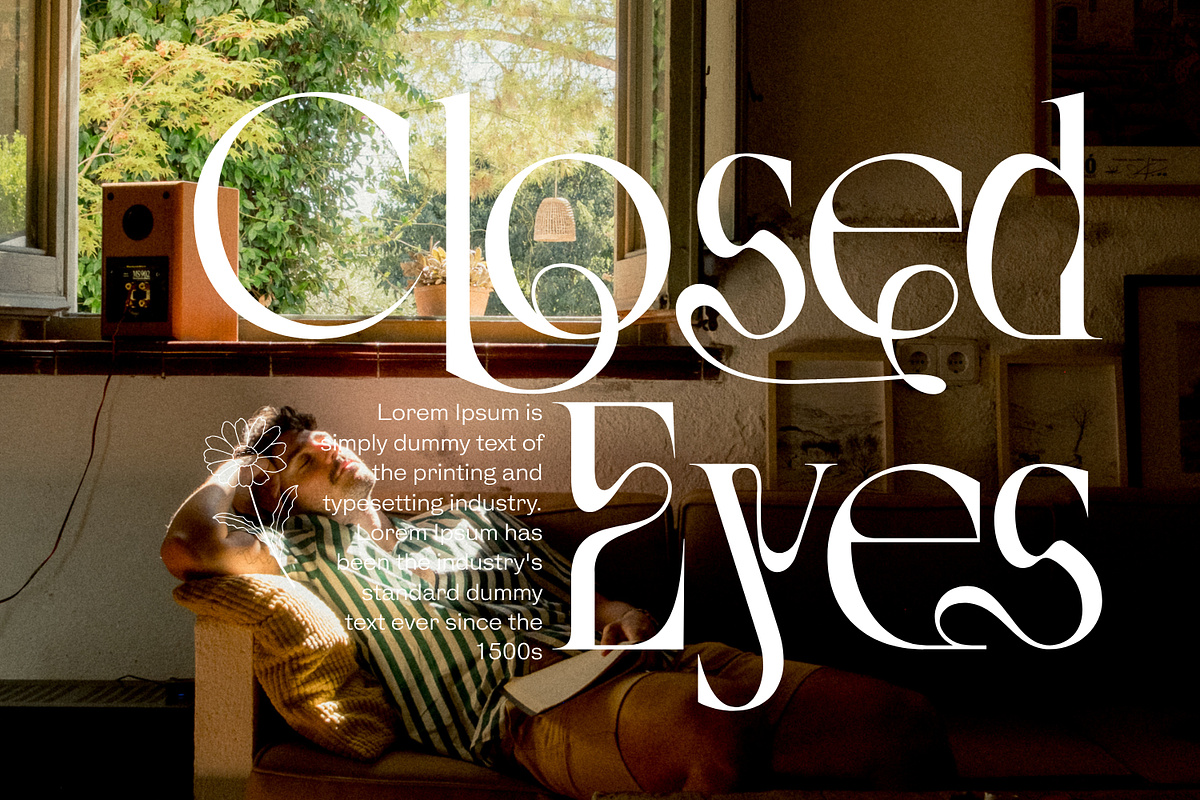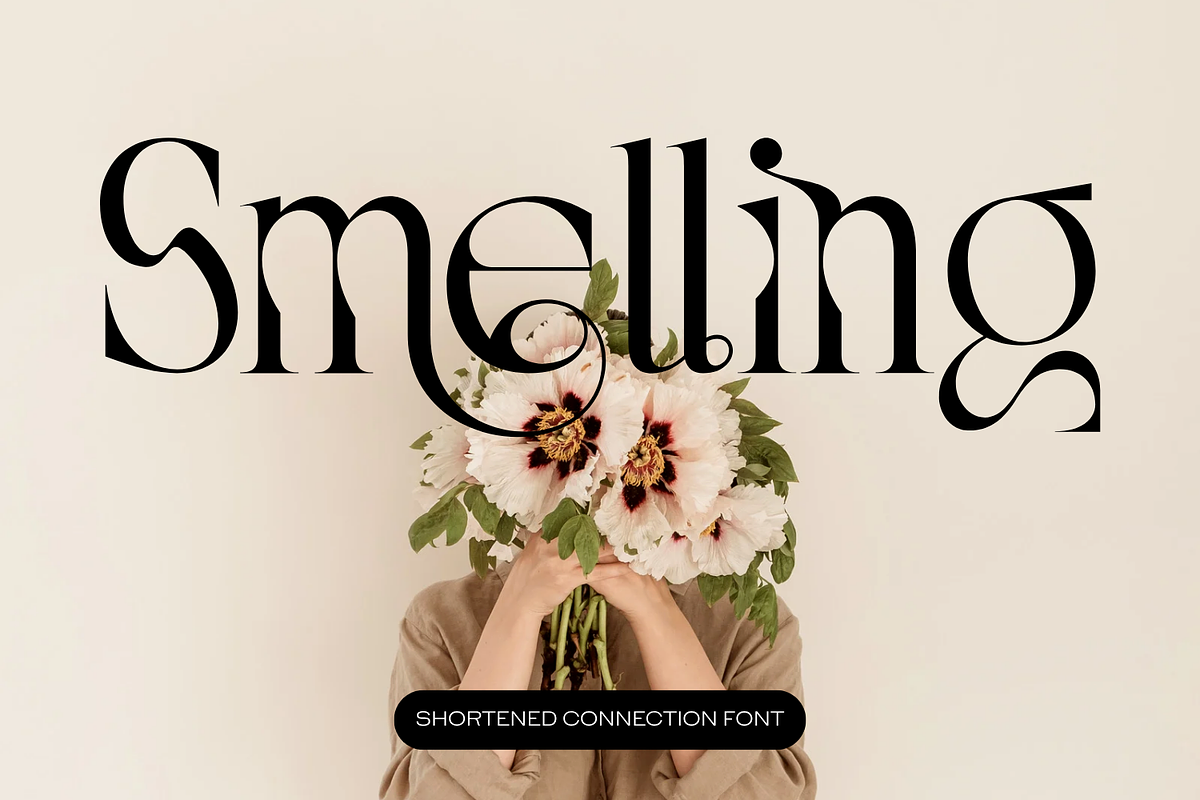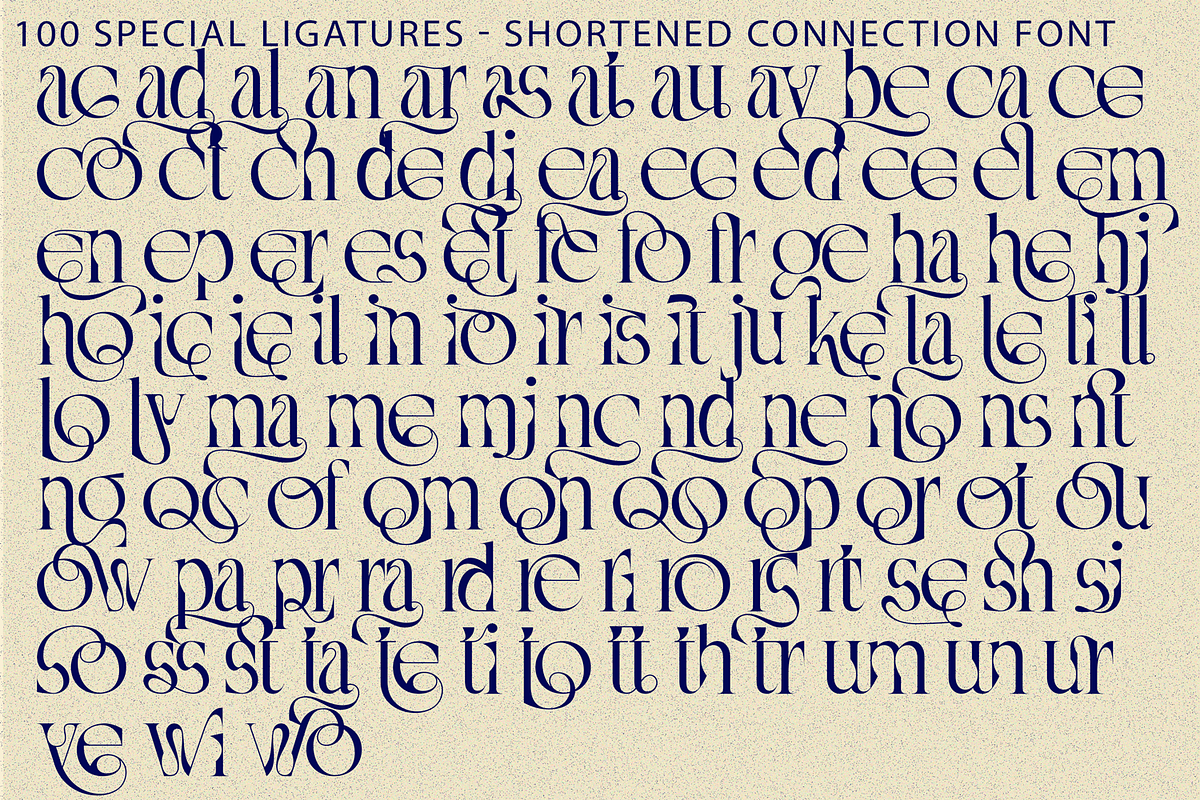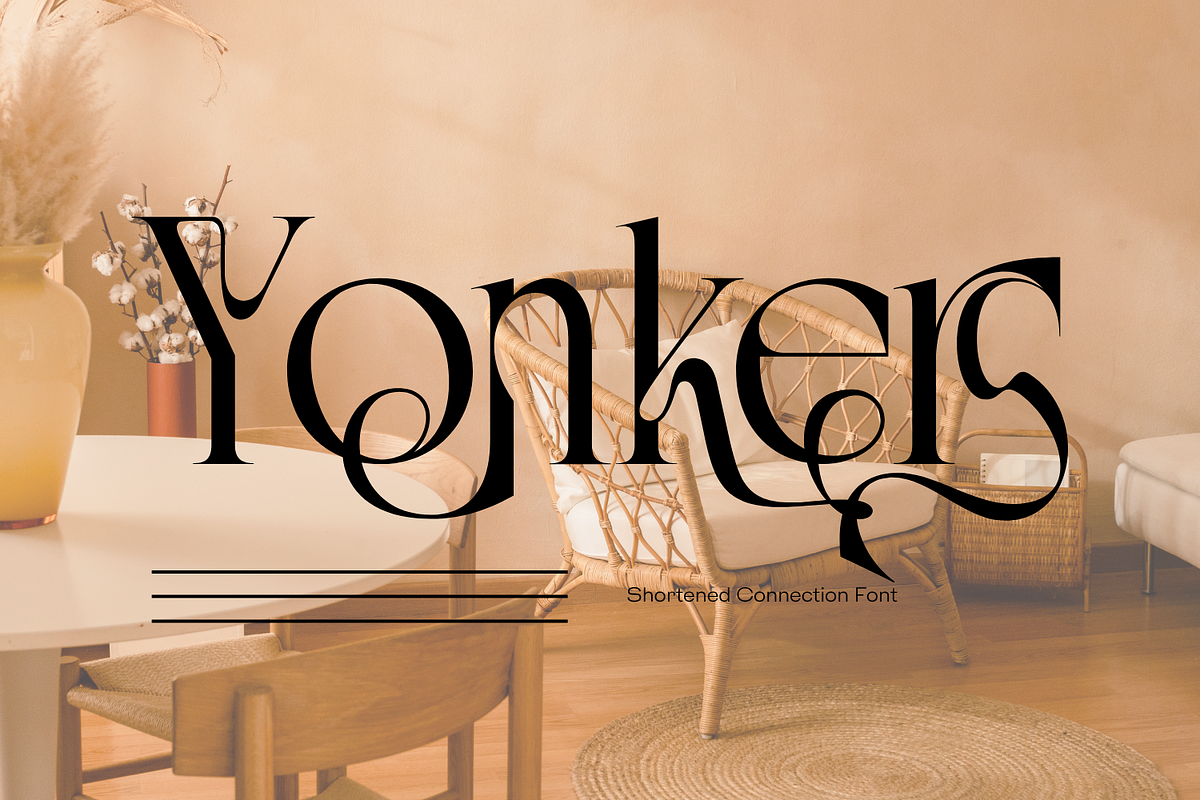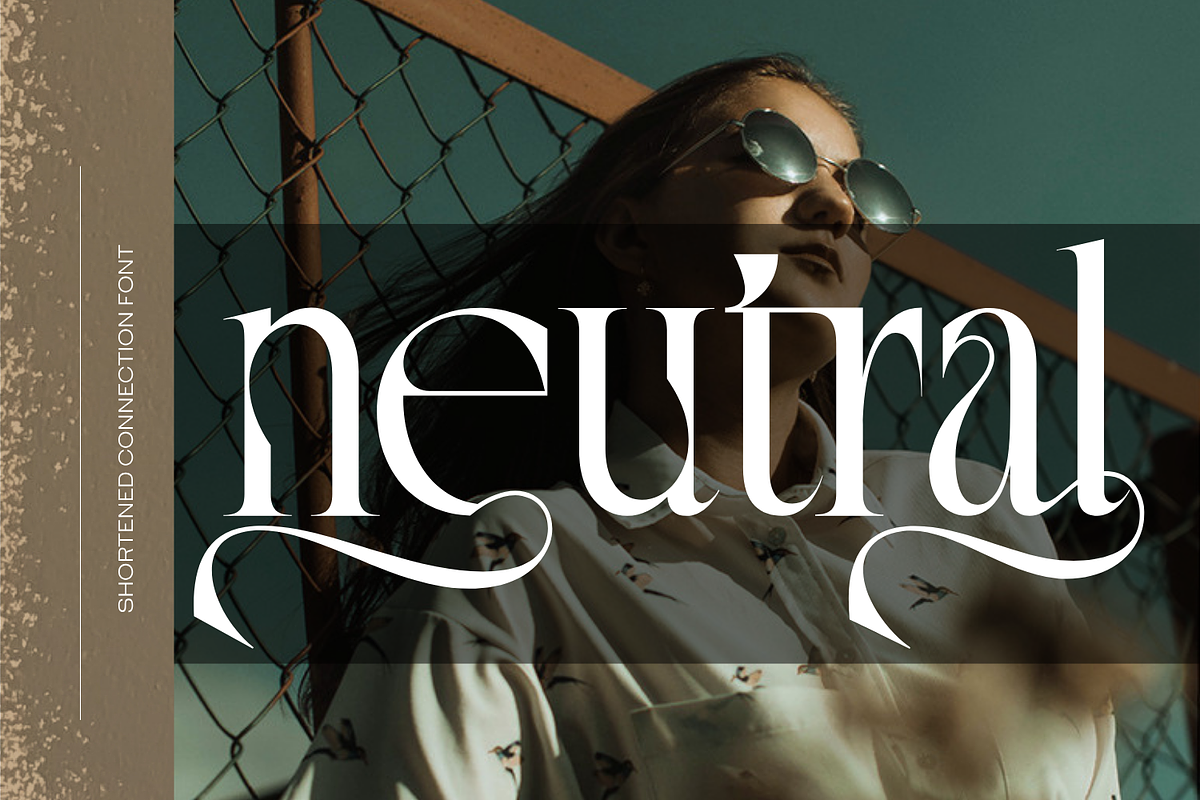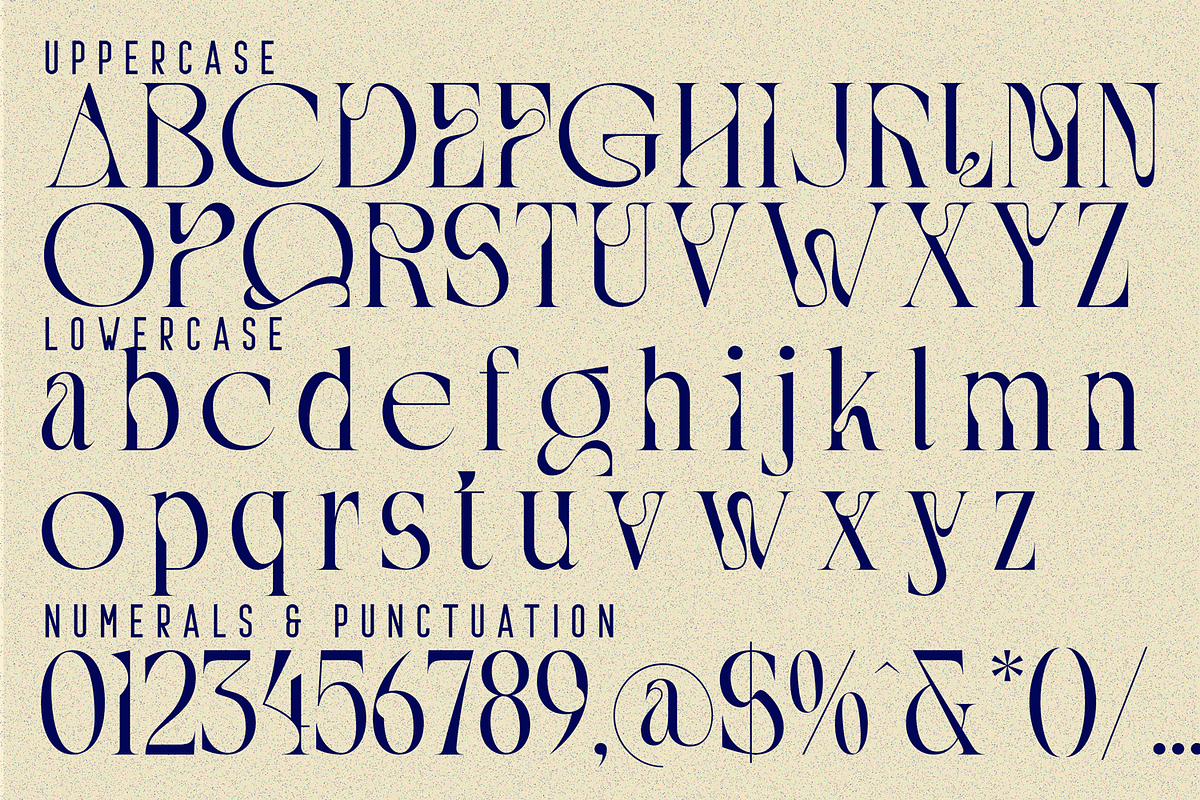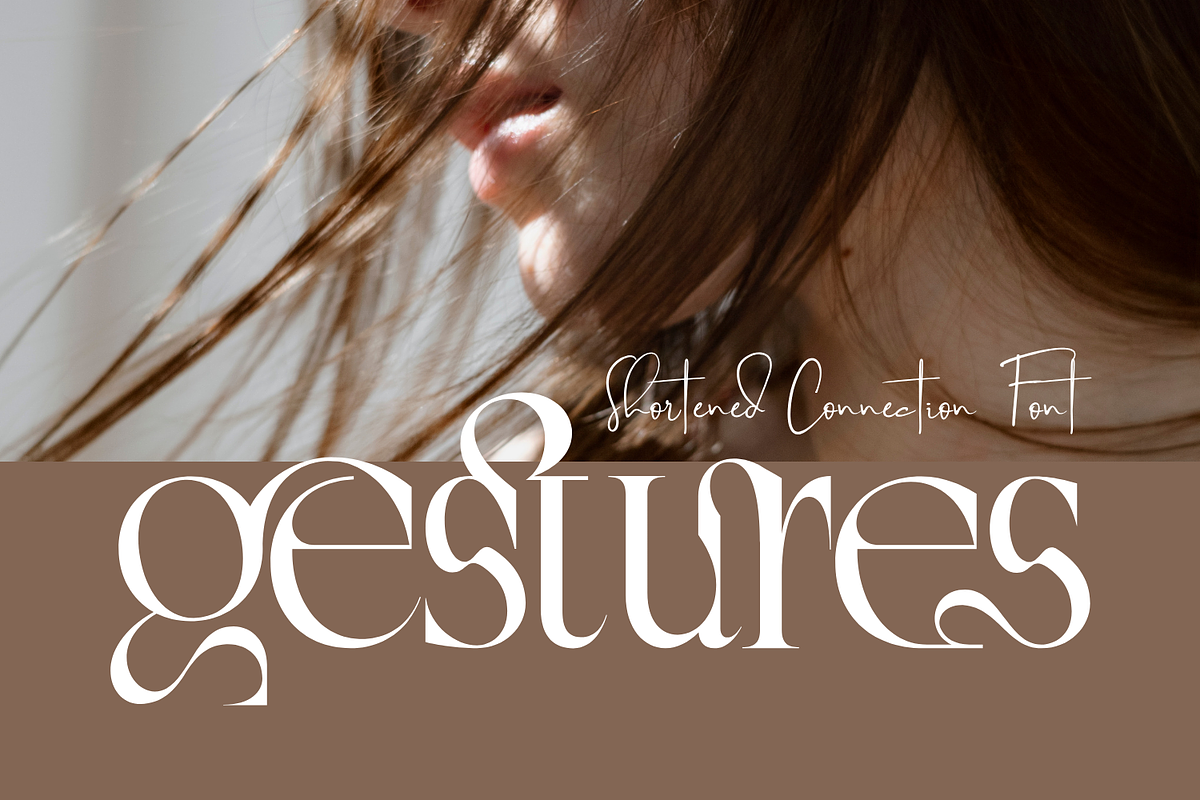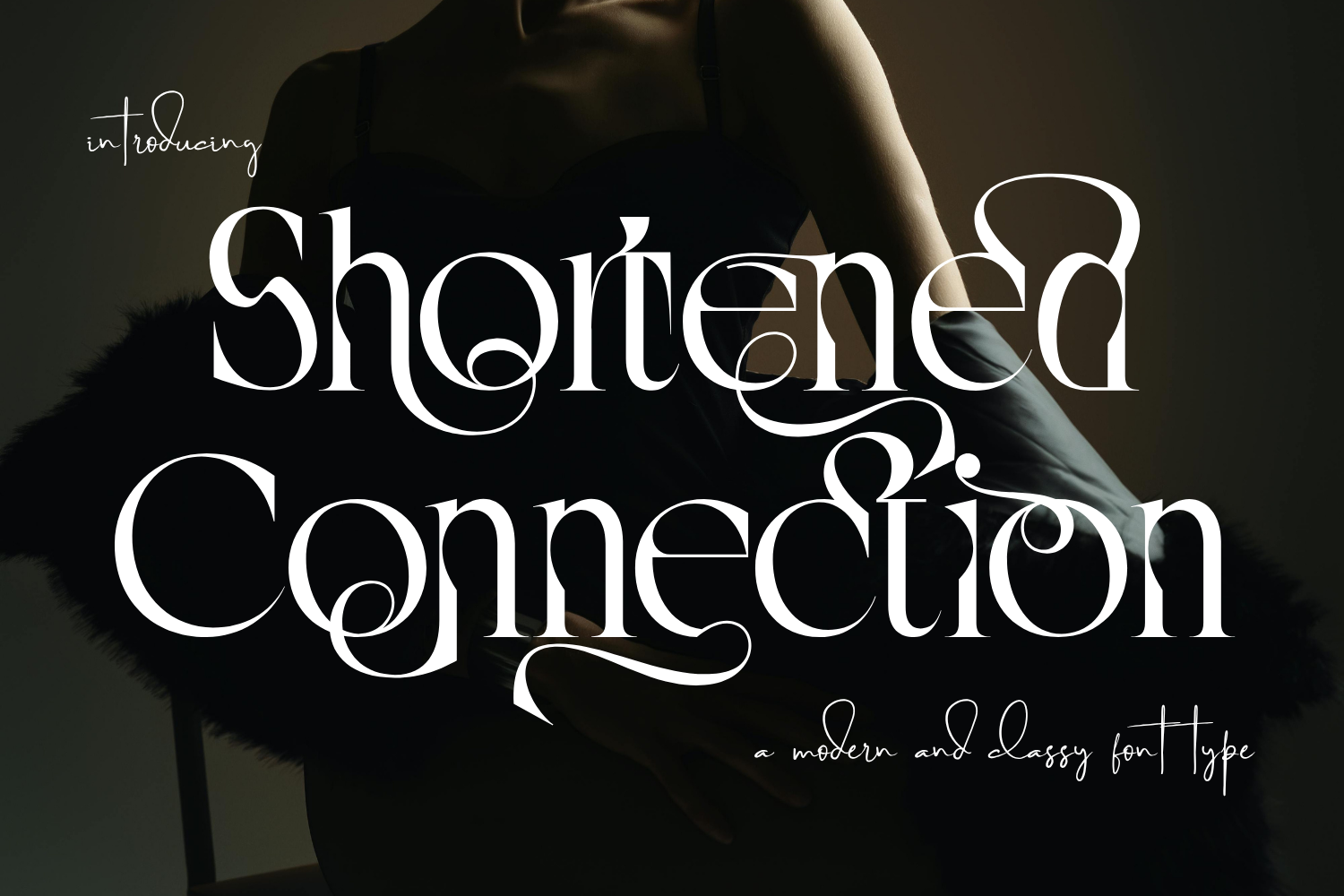
Shortened Connection - Elegant Font
Shortened Connection - Elegant Font is an elegant calligraphic serif display font that beautifully blends classic typography with graceful handwritten influences. Featuring high-contrast strokes and refined serif details, this typeface delivers a timeless and sophisticated appearance. Enhanced with flowing swashes and stylish ligatures, Shortened Connection creates a natural sense of movement and harmony across every word. The delicate curves and decorative connections add a romantic and luxurious touch, making it ideal for wedding designs, fashion branding, editorial layouts, and premium logos.
🔤Features:
- Uppercase & Lowercase Letters
- Around 100 Special Ligatures & Alternates
- Accented Characters for multilingual support
🔤About 100 ligatures combined with Stylistic Alternates Font:
ac ad al an ar as at au av be ca ce ch co ct de di ea ec ed ee el em en ep er es et fe fo fr ge ha he hi ho ie ic il in io ir is it ju ke la le li ll lo ly ma me mi nc nd ne ng no nt ns oc of om on oo op or ot ou ow pa pr ra rd re ri ro rs rt se sh si so ss st ta te th ti to tr tt um un ur ve wi wo